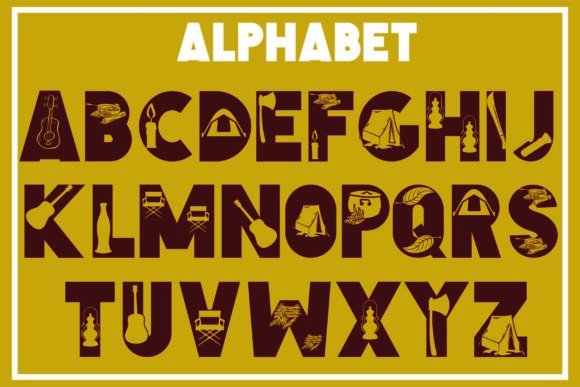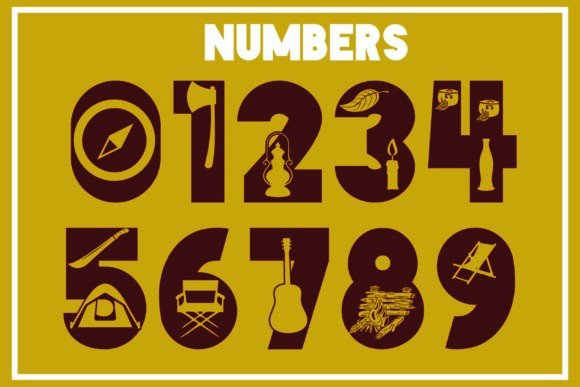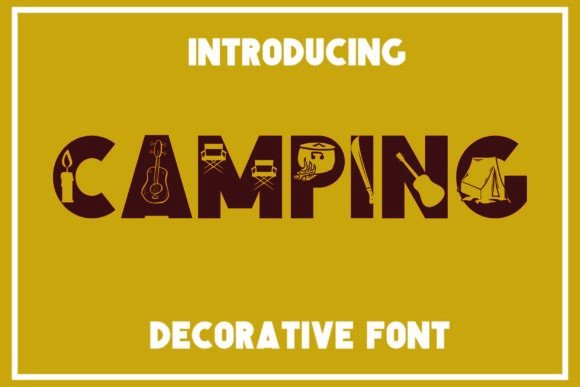
Camping Font: The Ultimate Addition to Your Fun and Playful Designs
Are you looking for a font that can add a touch of youth and joy to your designs? Look no further than the Camping Font! This cool, incredibly cute, and assertive decorative font is perfect for party invitations, gatherings, and any design that requires a playful and fun vibe.
What is Camping Font?
Camping Font is a unique and creative typeface that is designed to bring a sense of adventure and excitement to your designs. With its bold and playful letters, this font is sure to grab attention and make your designs stand out from the crowd.
Features of Camping Font
- Cool and Cute Design: Camping Font has a fun and youthful design that is perfect for designs that require a playful touch.
- Assertive and Bold: The font has bold and assertive letters that are sure to grab attention and make your designs stand out.
- Decorative and Ornate: Camping Font has a decorative and ornate design that adds a touch of elegance and sophistication to your designs.
- Easy to Read: Despite its bold and playful design, Camping Font is easy to read and understand, making it perfect for use in a variety of designs.
Uses of Camping Font
Camping Font is a versatile font that can be used in a variety of designs, including:
- Party Invitations: Add a touch of fun and excitement to your party invitations with Camping Font.
- Gatherings and Events: Use Camping Font to create eye-catching posters and flyers for gatherings and events.
- Crafting and DIY Projects: Add a playful touch to your crafting and DIY projects with Camping Font.
- Social Media Graphics: Use Camping Font to create fun and engaging social media graphics.
Why Choose Camping Font?
There are many reasons why you should choose Camping Font for your designs. Here are a few:
- Unique and Creative: Camping Font is a unique and creative typeface that will add a touch of personality to your designs.
Tips for Using Camping Font
Here are a few tips for using Camping Font in your designs:
- Use it Sparingly: While Camping Font is a fun and playful font, it can be overwhelming if used too much. Use it sparingly to add a touch of personality to your designs.
- Pair it with Other Fonts: Camping Font pairs well with other fonts, such as sans-serif fonts. Experiment with different font combinations to find the perfect look for your design.
- Experiment with Colors: Camping Font looks great in a variety of colors. Experiment with different colors to find the perfect look for your design.
Camping Font is a fun and playful font that is perfect for adding a touch of youth and joy to your designs. With its bold and assertive letters, this font is sure to grab attention and make your designs stand out from the crowd. Whether you’re a designer or a crafter, Camping Font is a great addition to your font collection.